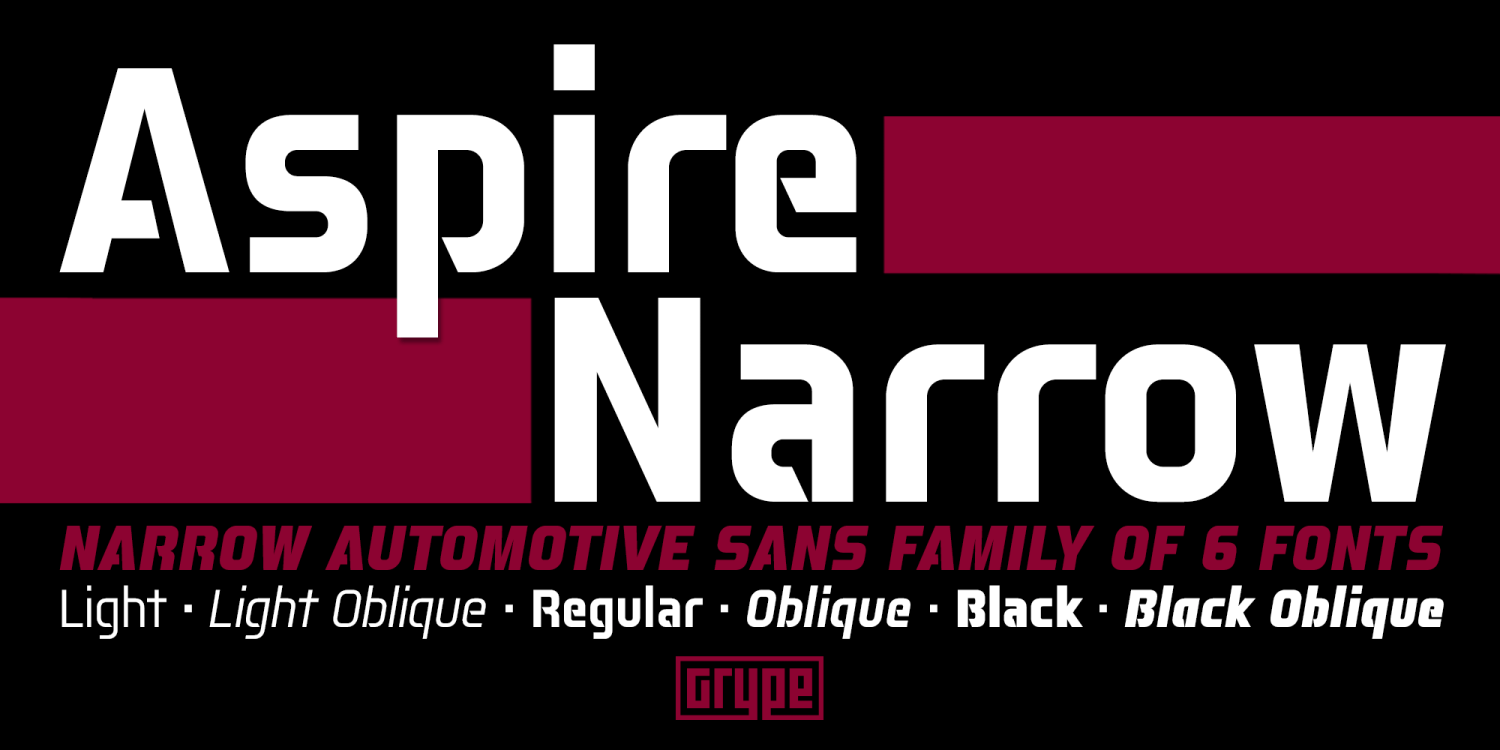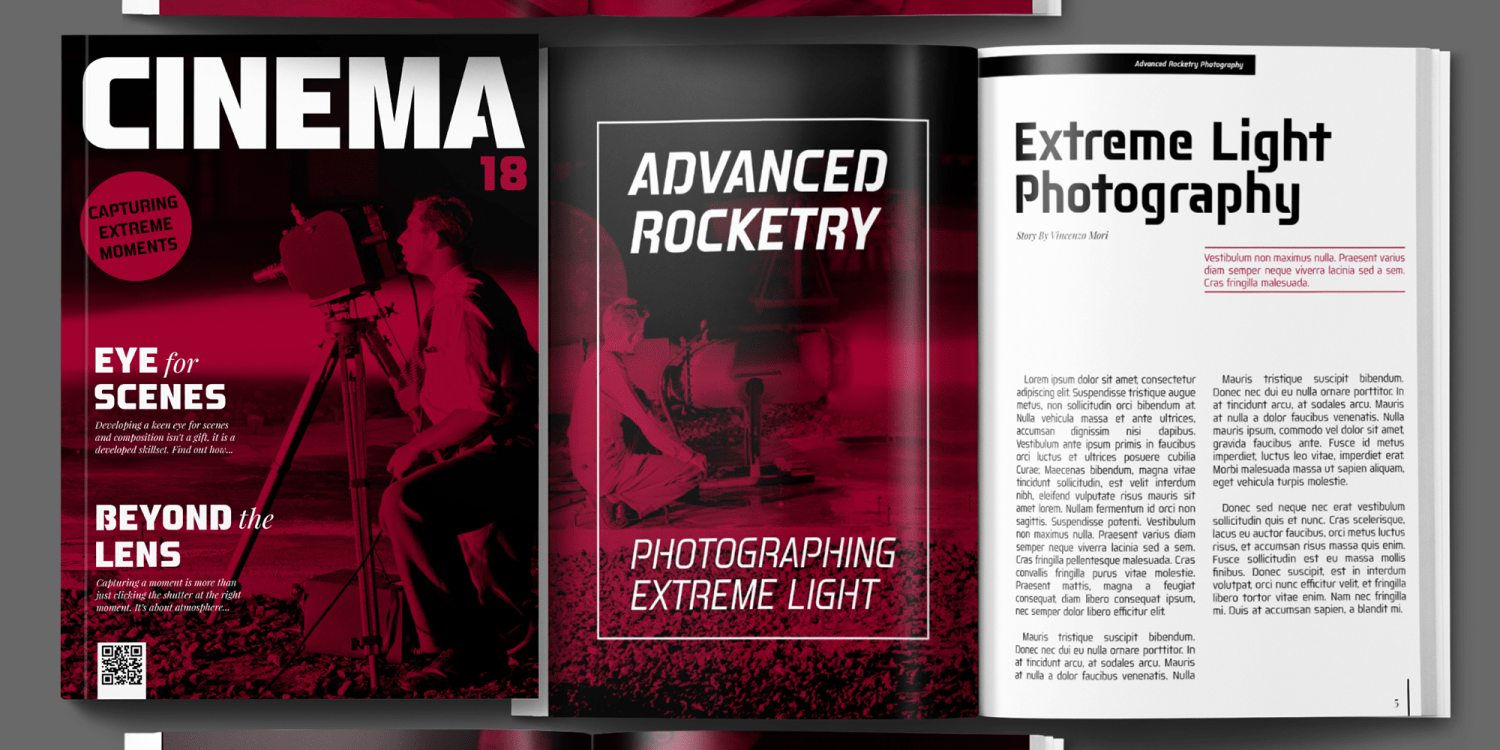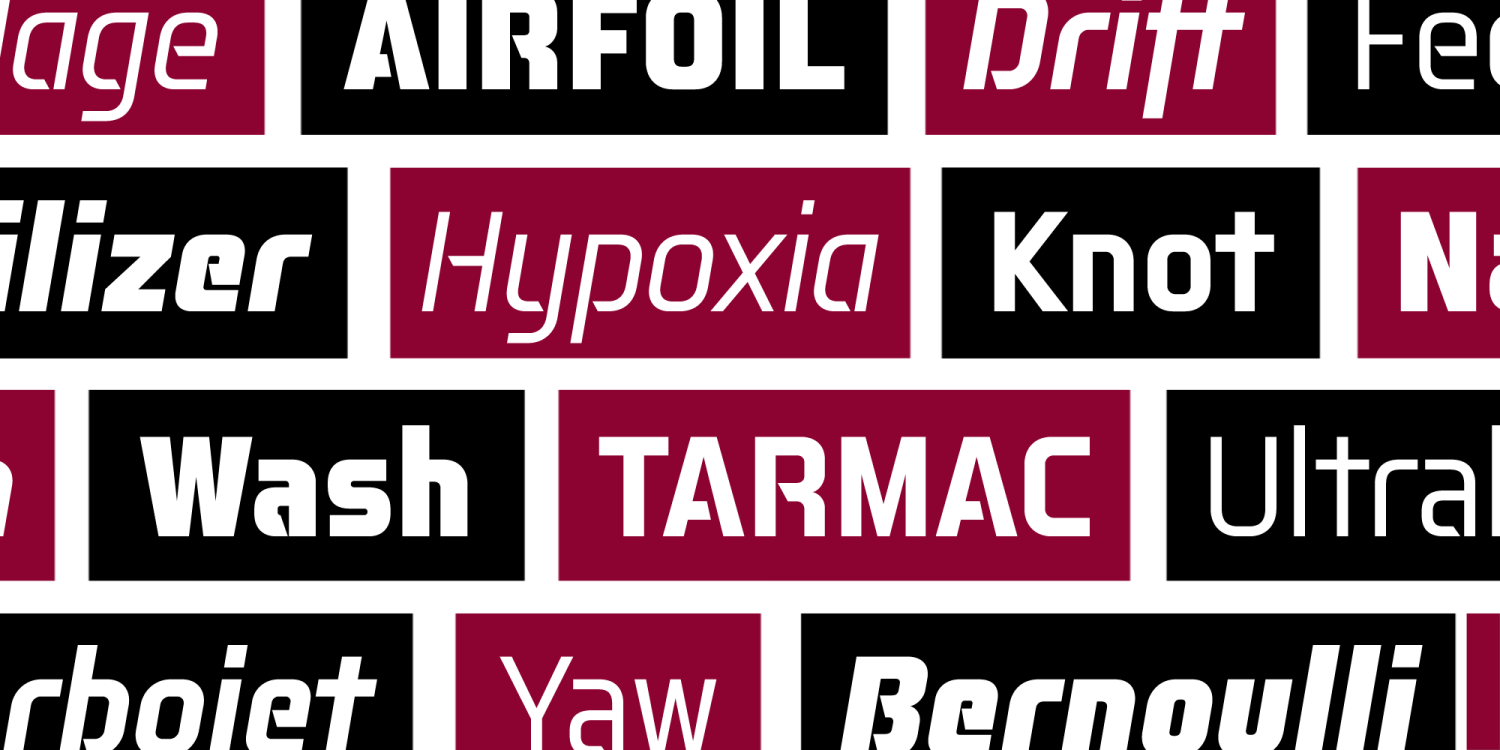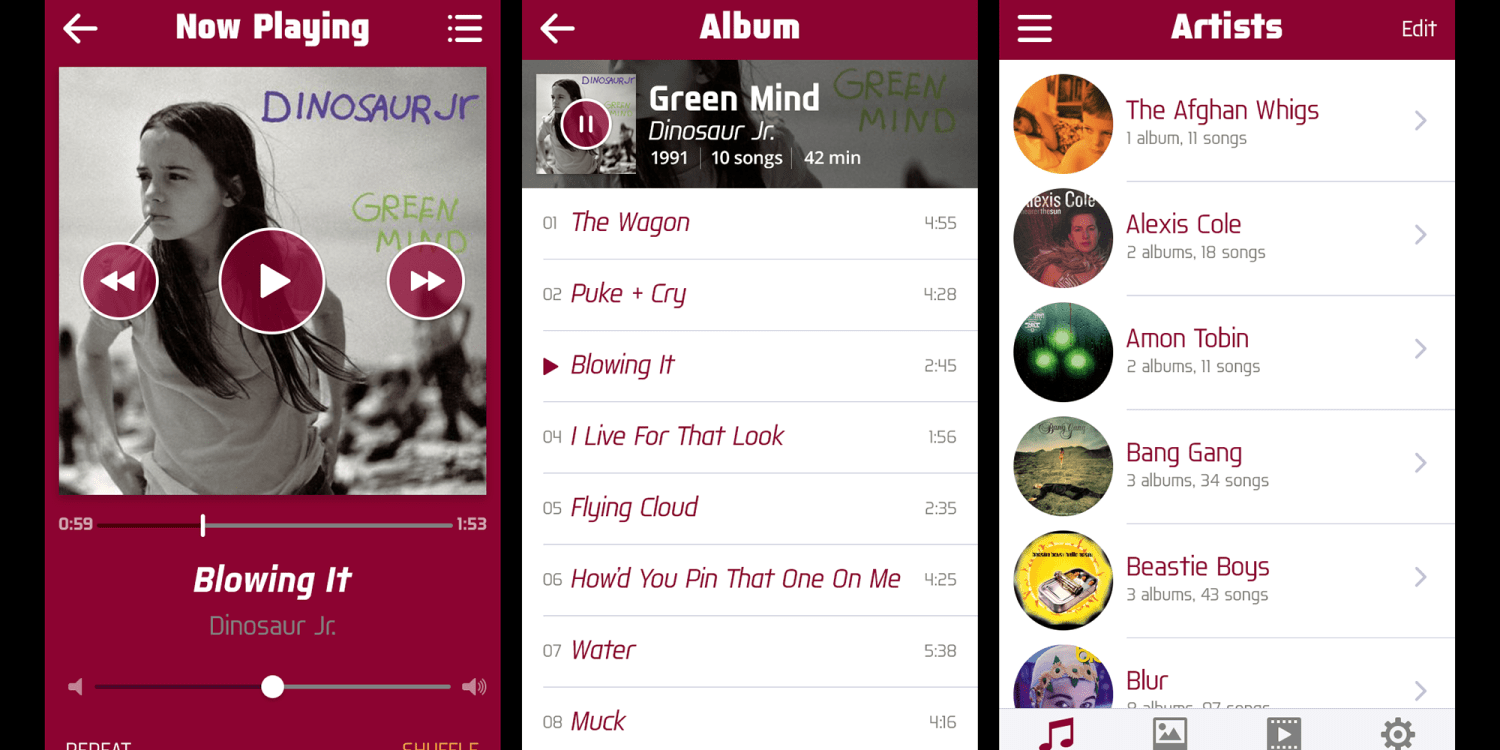
Aspire Narrow
Font Family by Grype
While the Aspire family finds its roots of inspiration in the ACURA automotive company logo, with its wider base, the Aspire Narrow family condenses those styles into something more suitable for larger bodies of text in a more standardized width.
Aspire pays homage the techno display styling of the inspiration logotype, further evolving beyond its brand inspired origin to give birth to a font family that pulls on modern and historical styles. It adopts a sturdy yet approachable style with its uniform stroke forms and curves, and goes on to include a lowercase, numerals, and a comprehensive range of weights, creating a straightforward, uncompromising collection of typefaces that lend a solid foundation and a broad range of expression for designers.
477 glyphs per style - including Capitals, Lowercase, Numerals, Punctuation and an extensive character set that covers multilingual support of latin based languages.
Stylistic Alternates - alternate characters that remove the angled stencil cuts for a more standardized text look. 3 weights in the family: Light, Regular, & Black.
3 obliques in the family, one for each weight: Light, Regular, & Black.